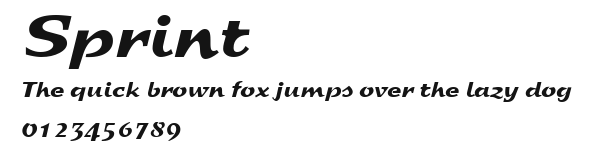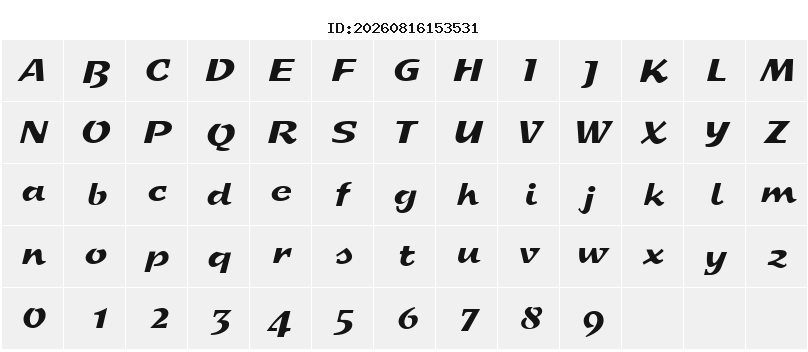
Sprint Preview
• Font Name: Sprint
• Full Font Name: Sprint Regular
• PostScript Name: Sprint
About Sprint.ttf
Sprint.ttf is a modern, elegant sans-serif font designed for ultimate readability and visual harmony. Perfect for branding, headlines, web design, and print materials.